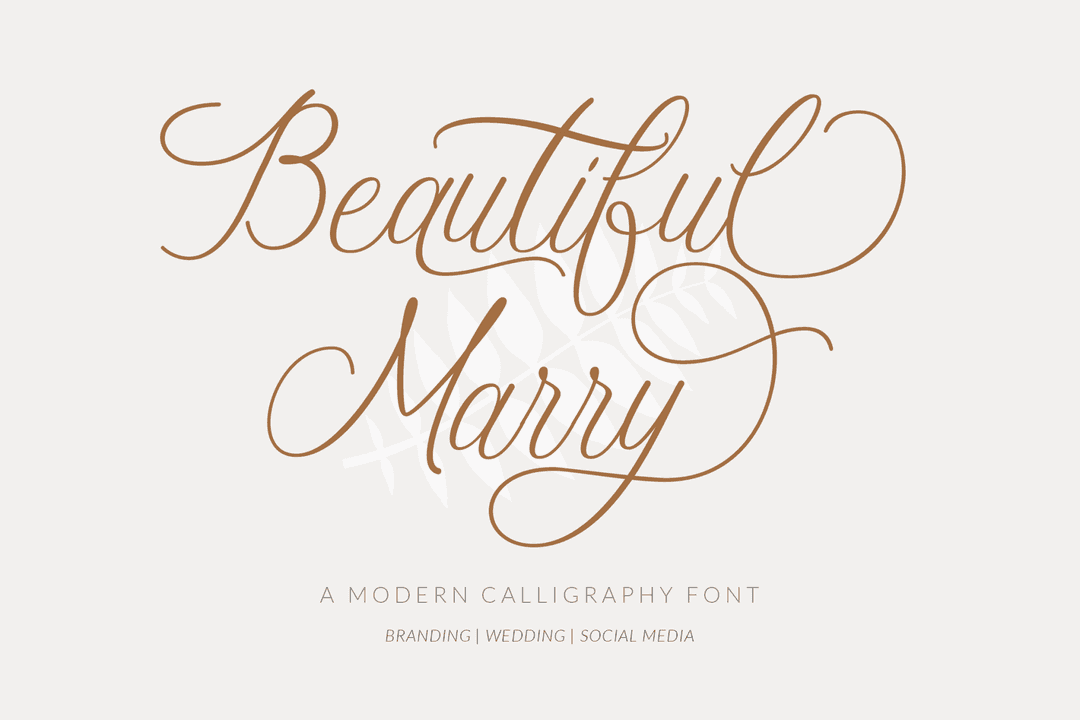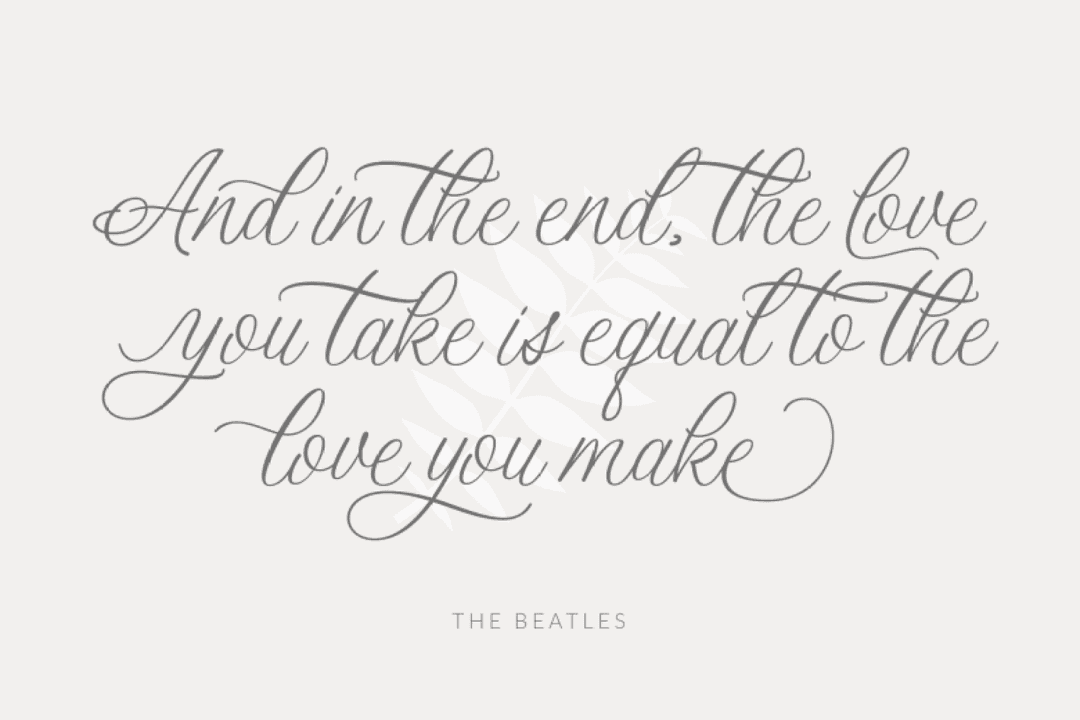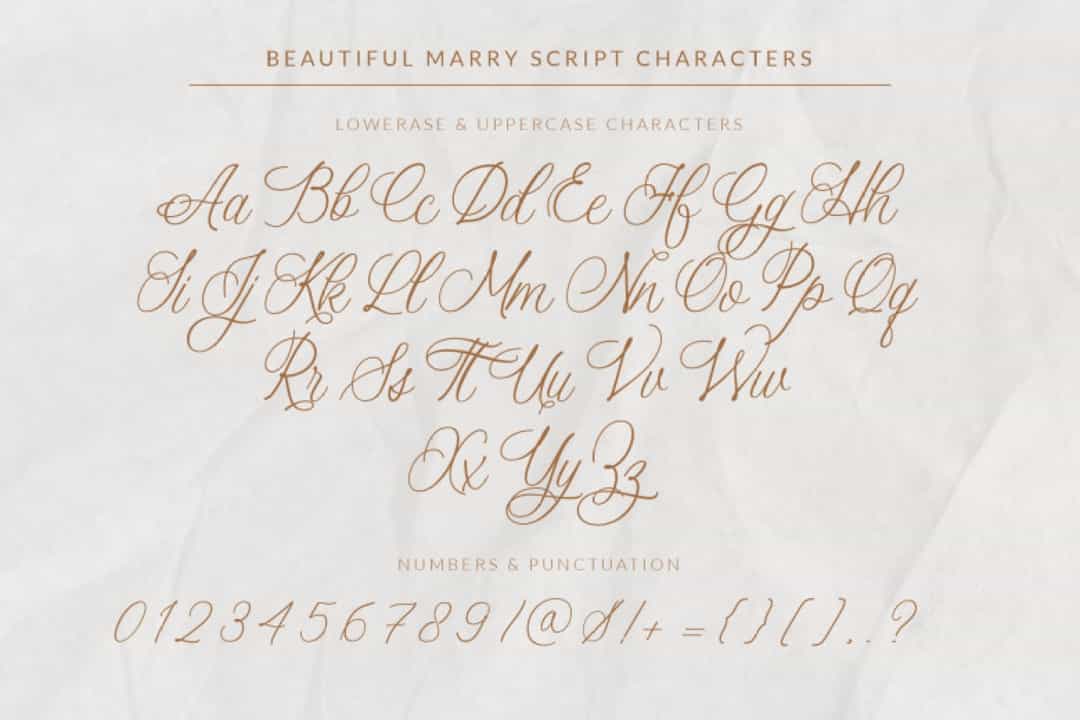
Beautiful Marry is an elegant and romantic calligraphy script typeface featuring characters that dance across its base. Perfect for adding luxurious energy to any design project! Plus it’s PUA encoded so that all its incredible characters and ligatures can be easily used!